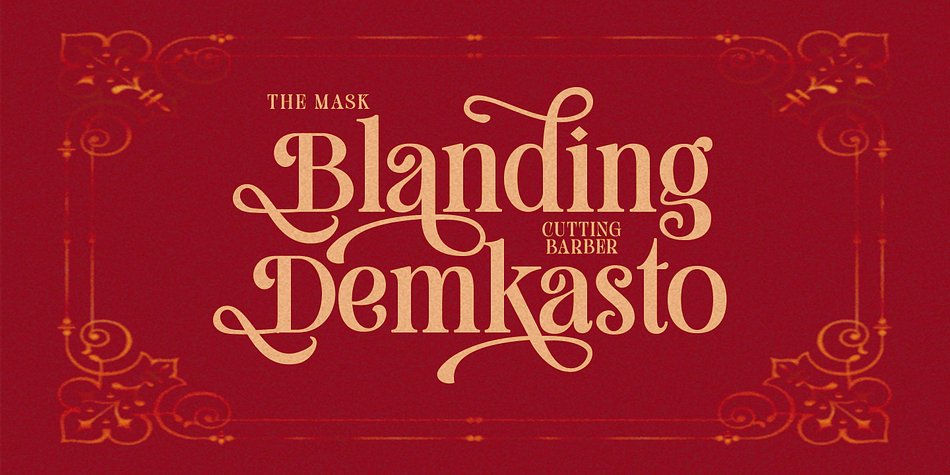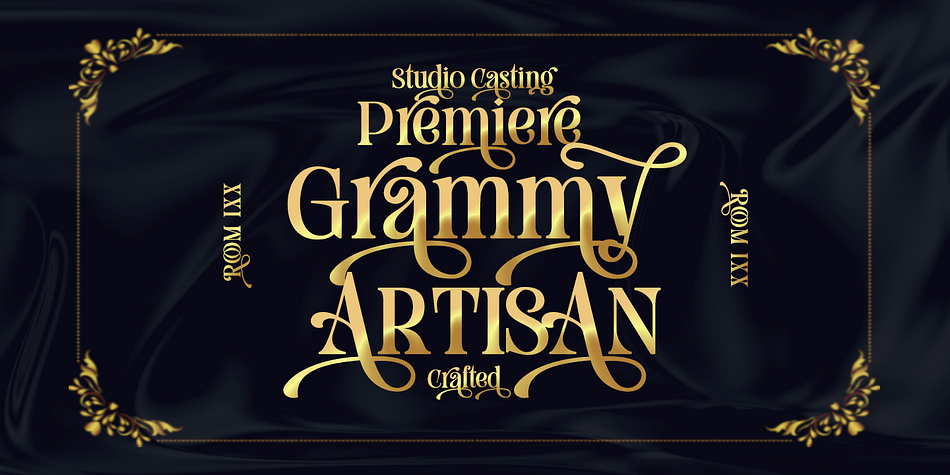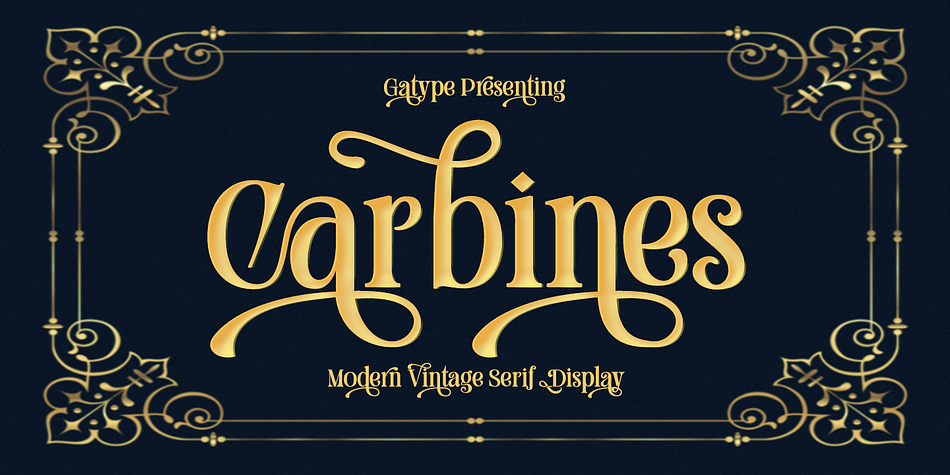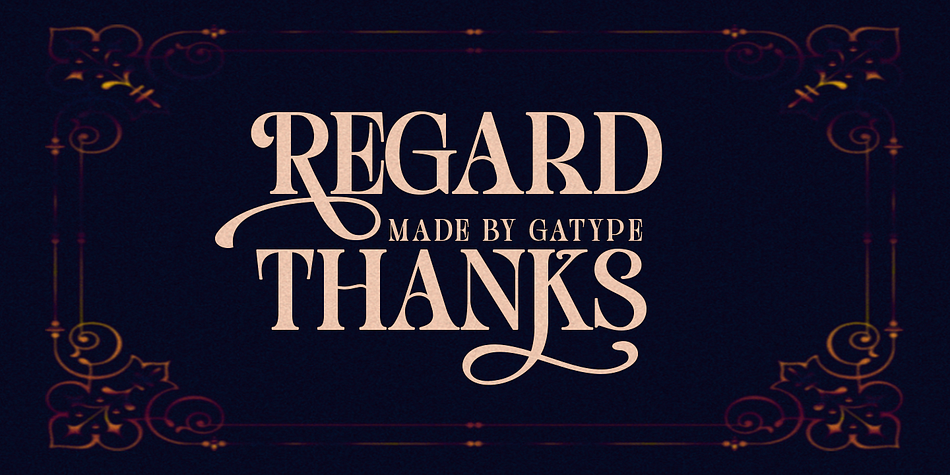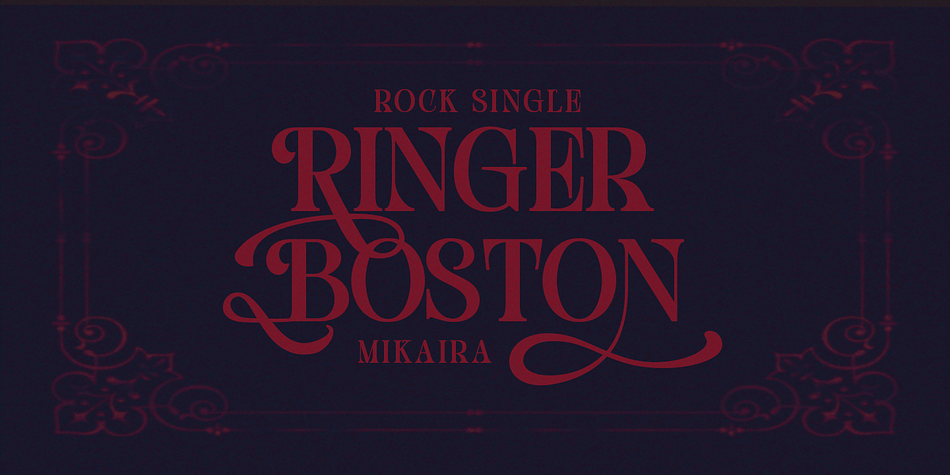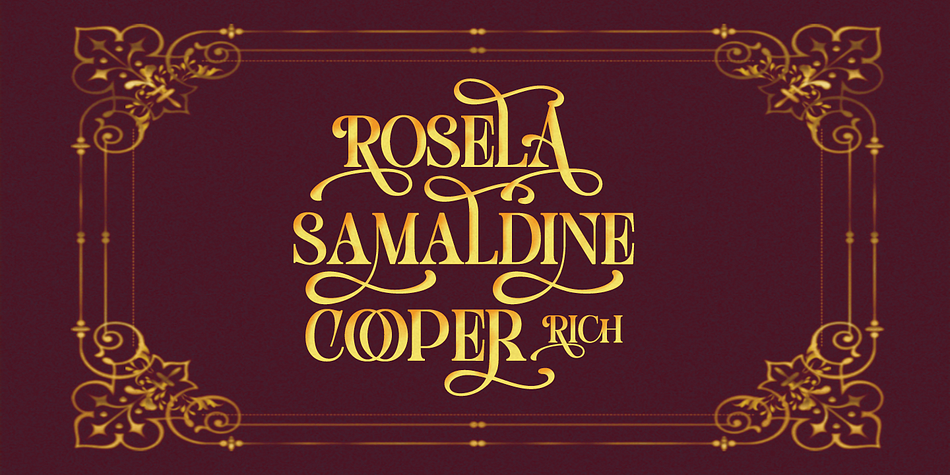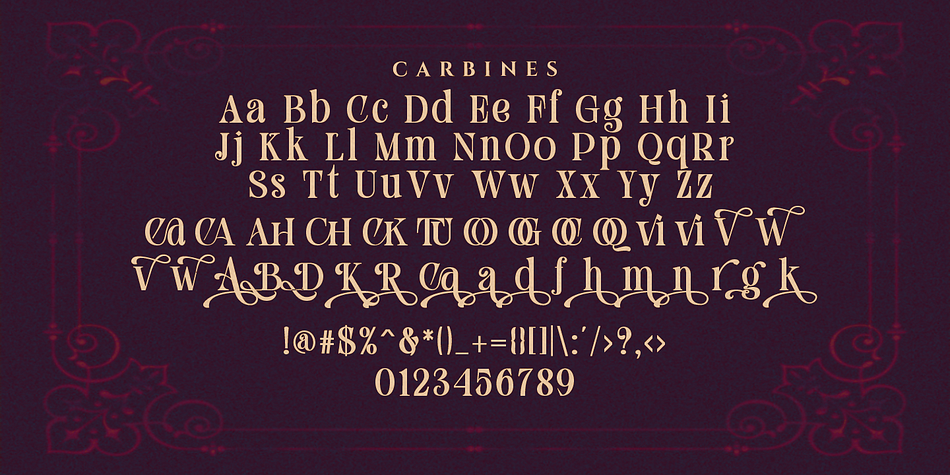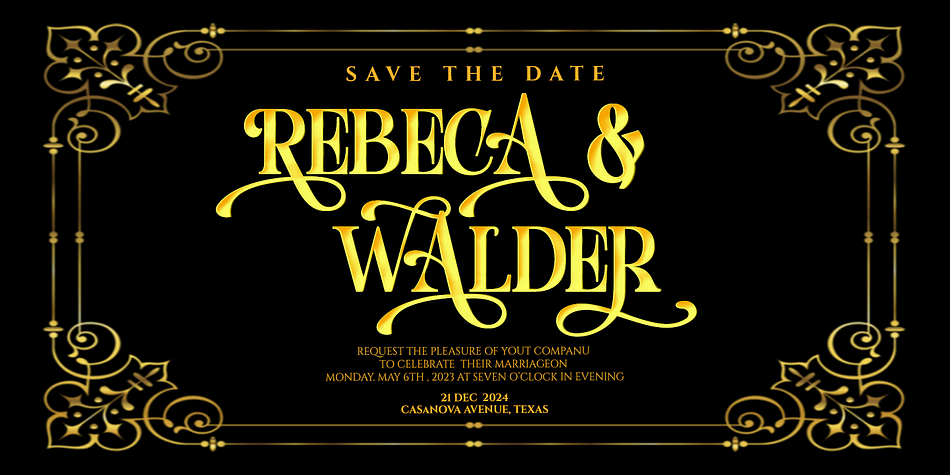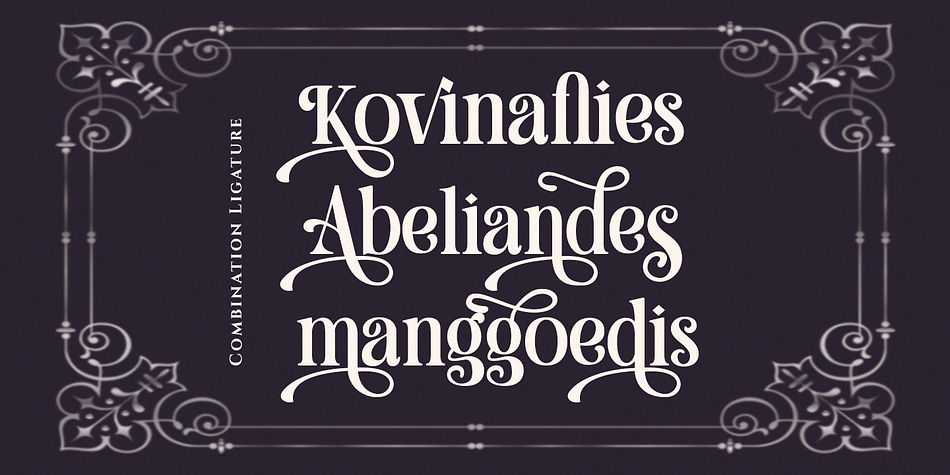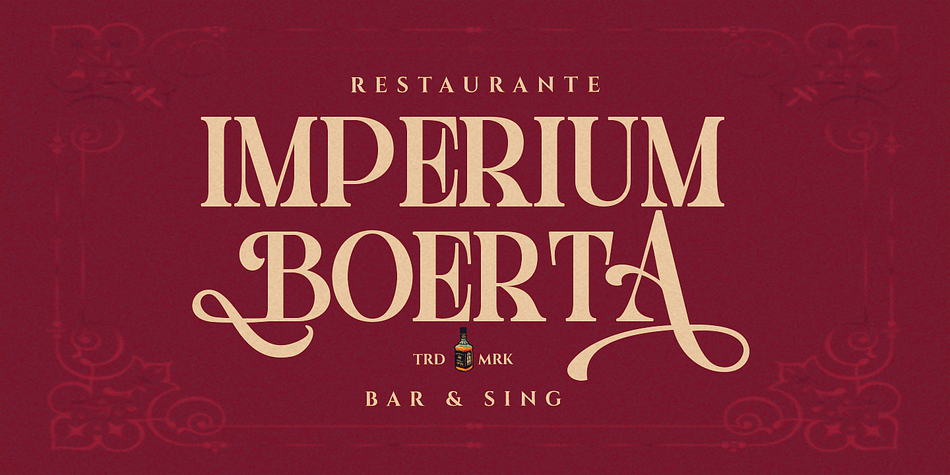
Carbines
Carbines is a display serif font family published by Gatype.
Carbines Serif is Retro with extreme cuts, sharp angles and interactive straps. Affected characters are spread across three capital-only subfamilies, with distinct styles, and distinct personalities. The bold separation of characters and the considered standard of ligature create a type that is solid, modern and attractive.
Carbines is a modern fashion serif font, each letter has been carefully crafted to make your text look unique.